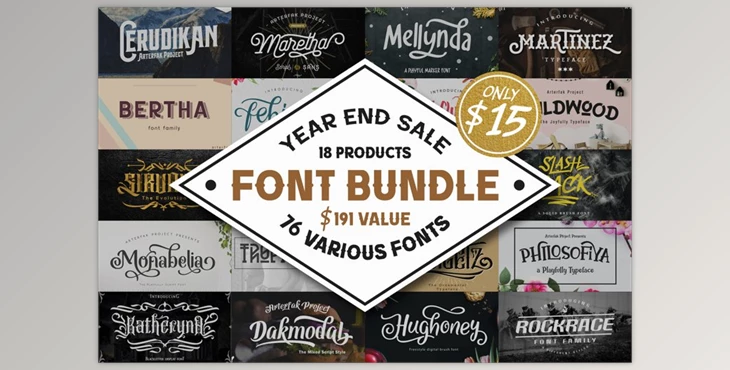
Fontbundles 76 Fonts in 1 Font Collection:
The collection includes 70+ different fonts, spanning 18 different products all in one bundle. This bundle also contains top-selling items such as Bertha, Monabelia, Philosophy, Rock race, and Hughoney font. The majority of the fonts included that are included in this bundle are suitable for display, headlines, or title-titling. Others are suitable for body text or editorial. This font bundle contains a variety of styles of fonts
- FontScript Font
- Black letter font
- Serif Font
- Sans Serif font
- Serif typeface
There are many OpenType options like Stylistic alternatives, contextual alternatives, Stylistic sets, and customized ligatures you can use to give you a variety of choices in your design. They also have up to 23 distinct accents.